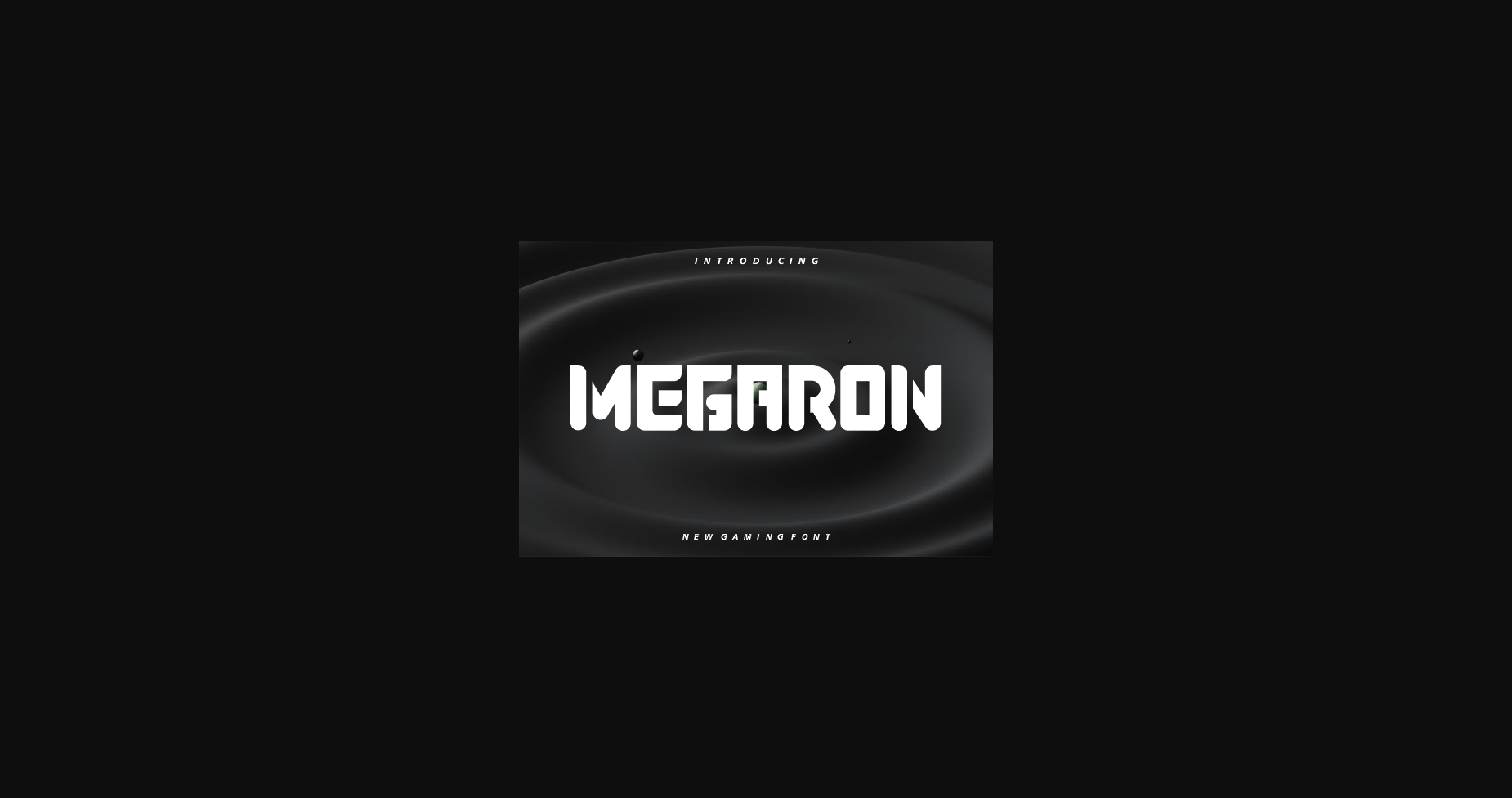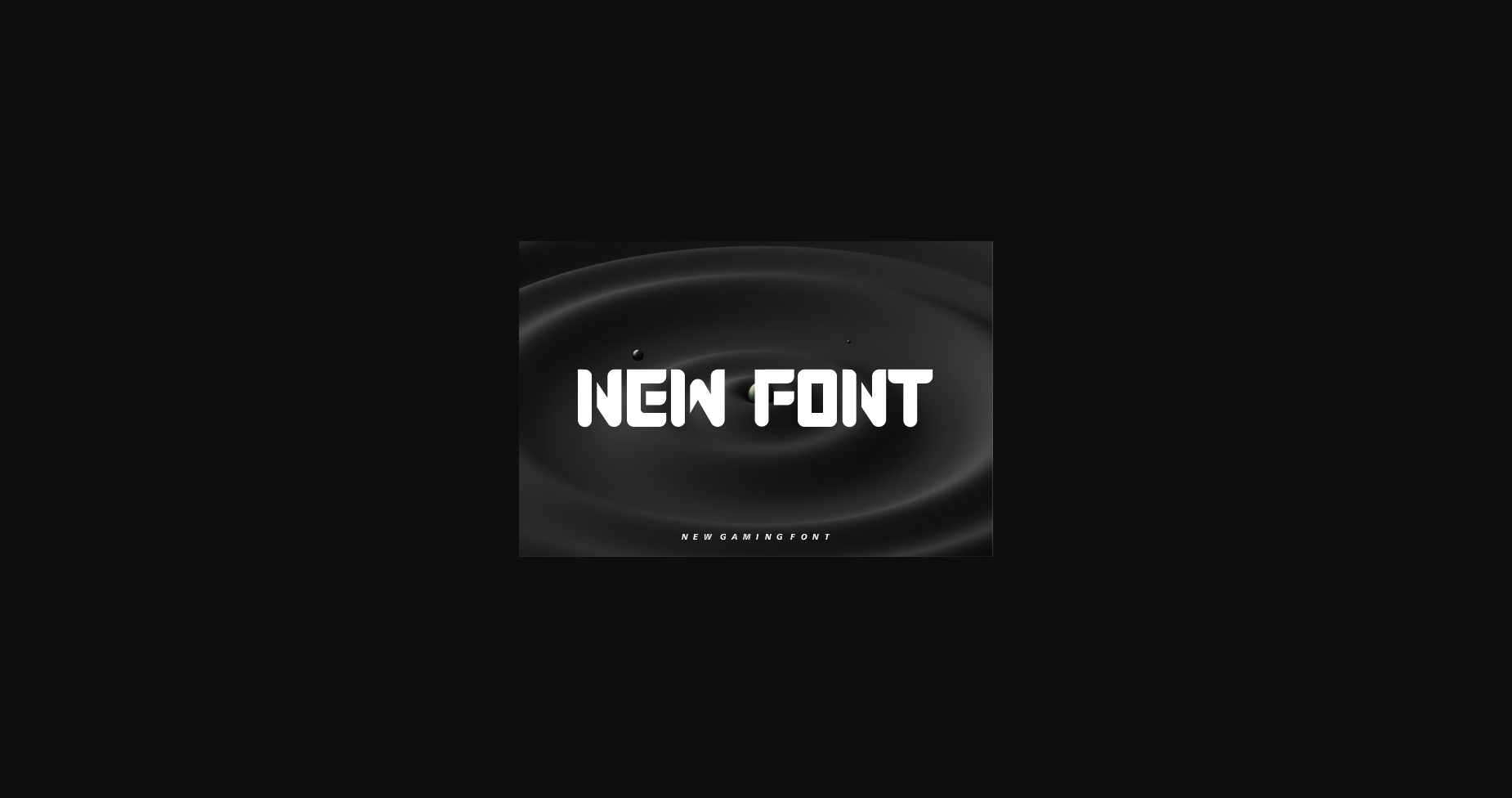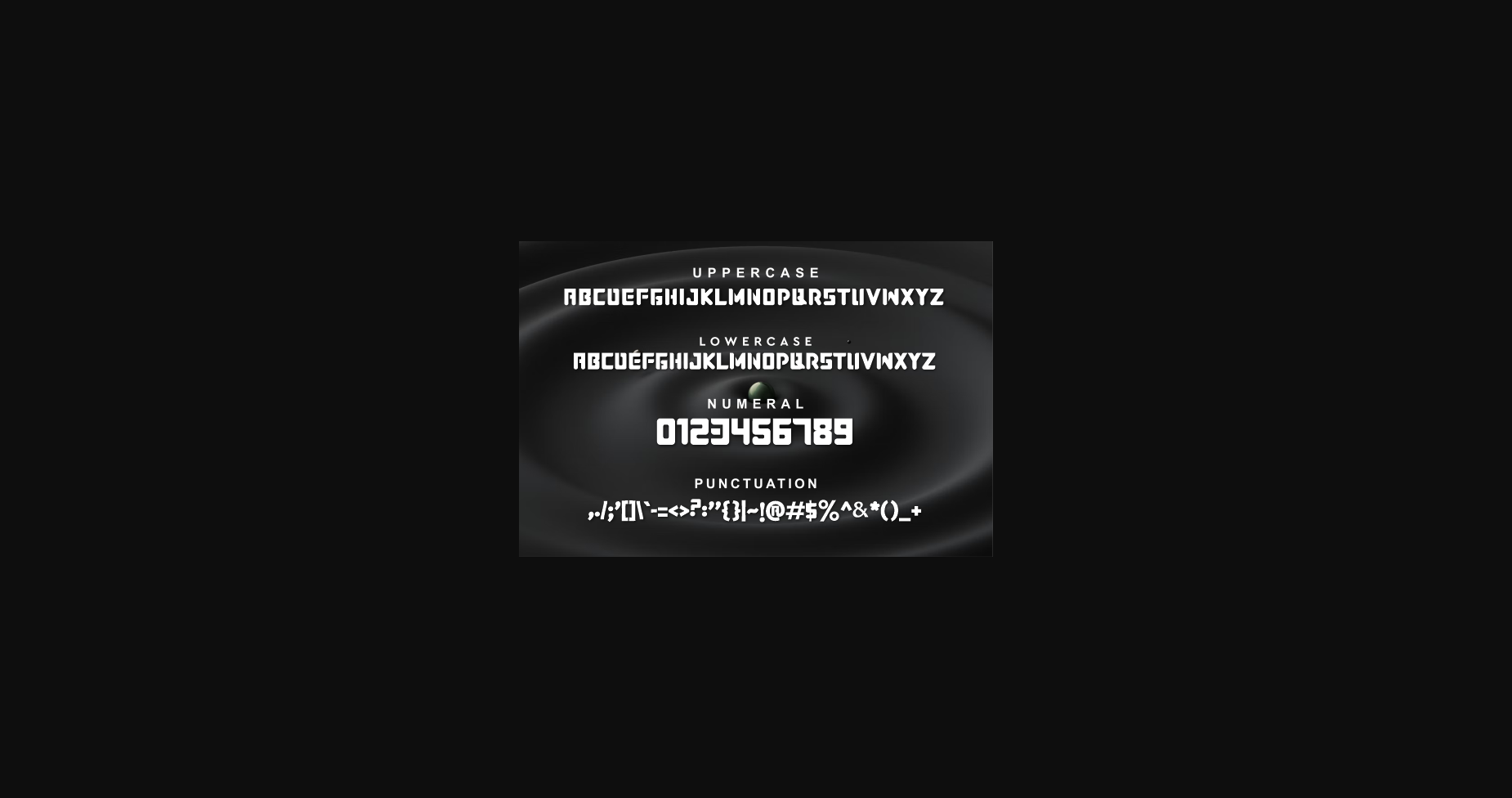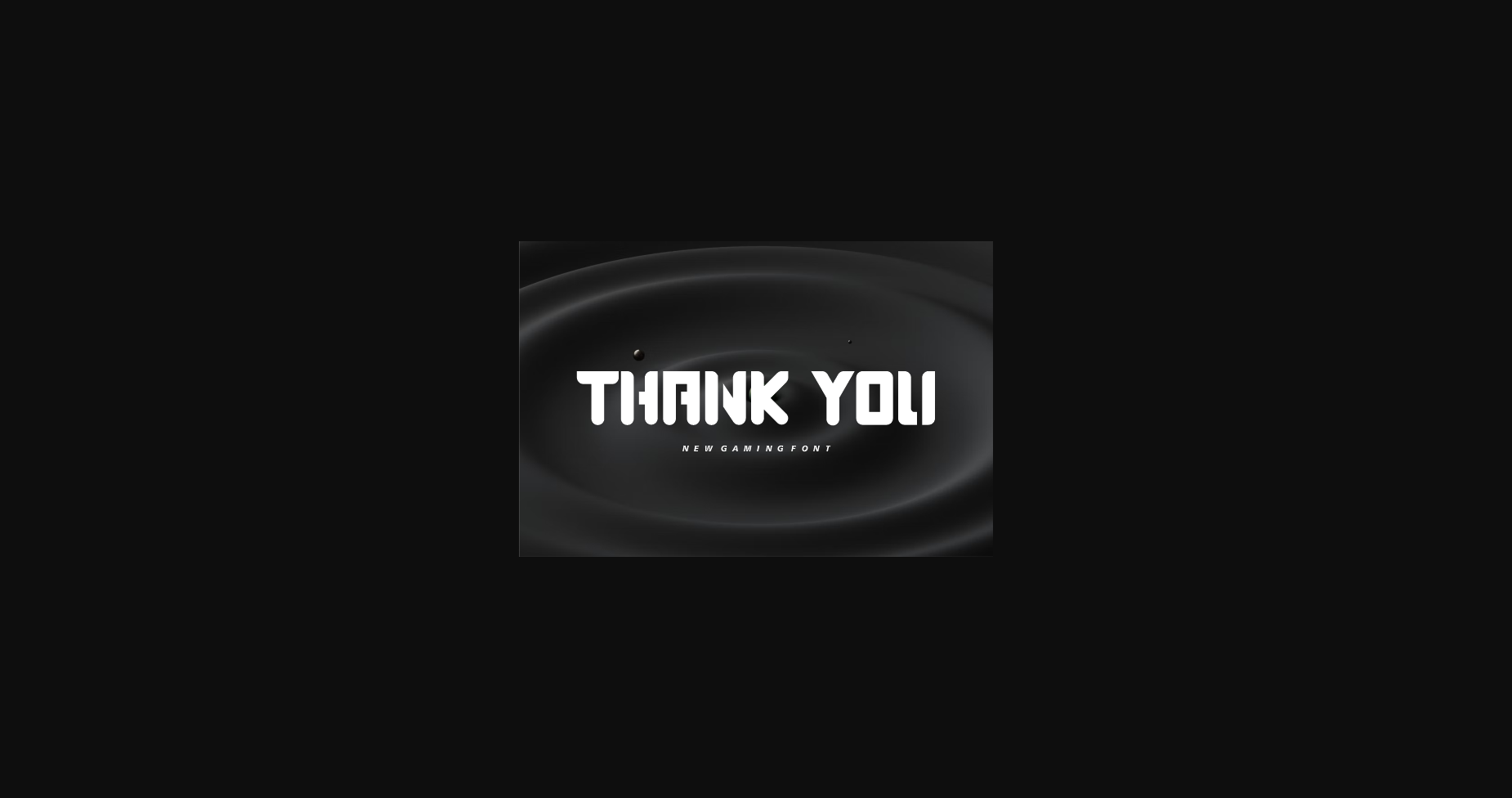
Megaron is a bold and authentic sans serif font suitable for any branding project like logos, t-shirt printing, export, etc. It looks outstanding in a wide range of contexts.